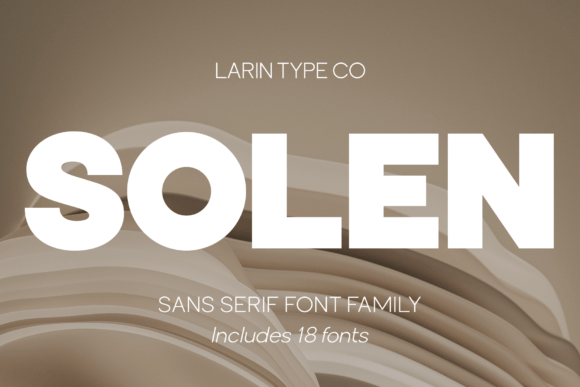
Introducing Solen Font - the ultimate sans-serif font for designers who want to make a bold statement! Created by Pasha Larin, this font is the perfect choice for anyone who wants to add a touch of modernity and sophistication to their designs.
With its clean lines and sleek, stylish appearance, Solen font is sure to turn heads and leave a lasting impression on anyone who sees it. Whether you're designing a logo, creating a website, or crafting a marketing campaign, this font will help you stand out from the crowd and make an impact.
One of the most impressive things about Solen font is its versatility. Whether you're working on a design project that requires a bold, attention-grabbing font, or one that calls for a more understated and elegant look, Solen font is the perfect choice. It can be used for headlines, logos, body copy, and more, making it a valuable addition to any designer's toolkit.
But Solen font isn't just about functionality - it's also about style. With its sleek and modern appearance, this font exudes confidence and sophistication, making it the perfect choice for anyone who wants to make a statement with their designs. It's the ideal font for businesses looking to establish a strong brand identity or designers looking to create eye-catching visuals.
In short, if you're looking for a font that will help you make a statement and stand out from the crowd, Solen font is the perfect choice. With its clean lines, modern appeal, and versatility, it's the ultimate font for designers who demand the best.